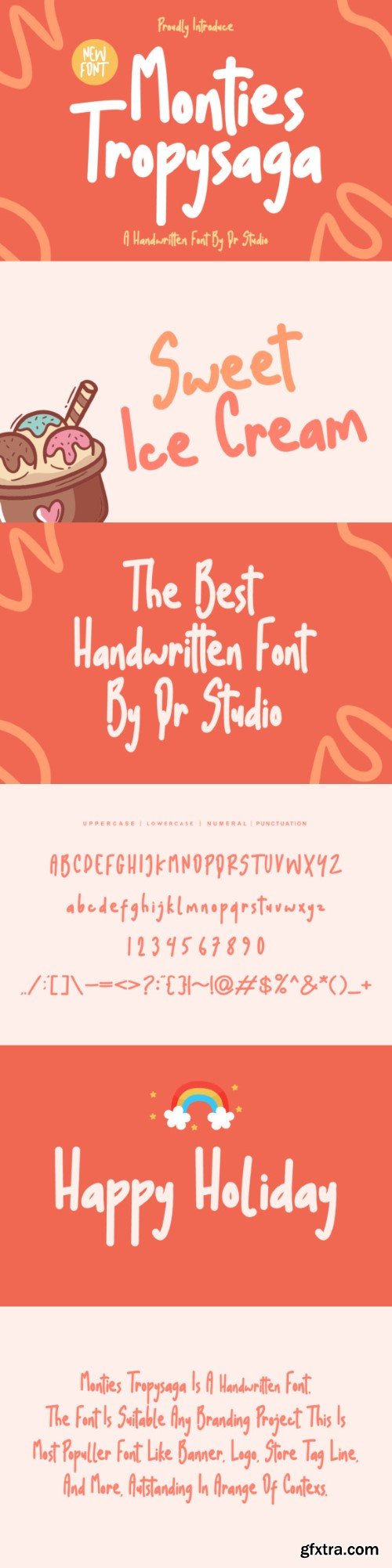
Monties Tropysaga Font
Monties Tropysaga is a fun, friendly, and flowing handwritten font. It has beautiful and well-balanced characters and as a result, it matches a wide pool of designs.